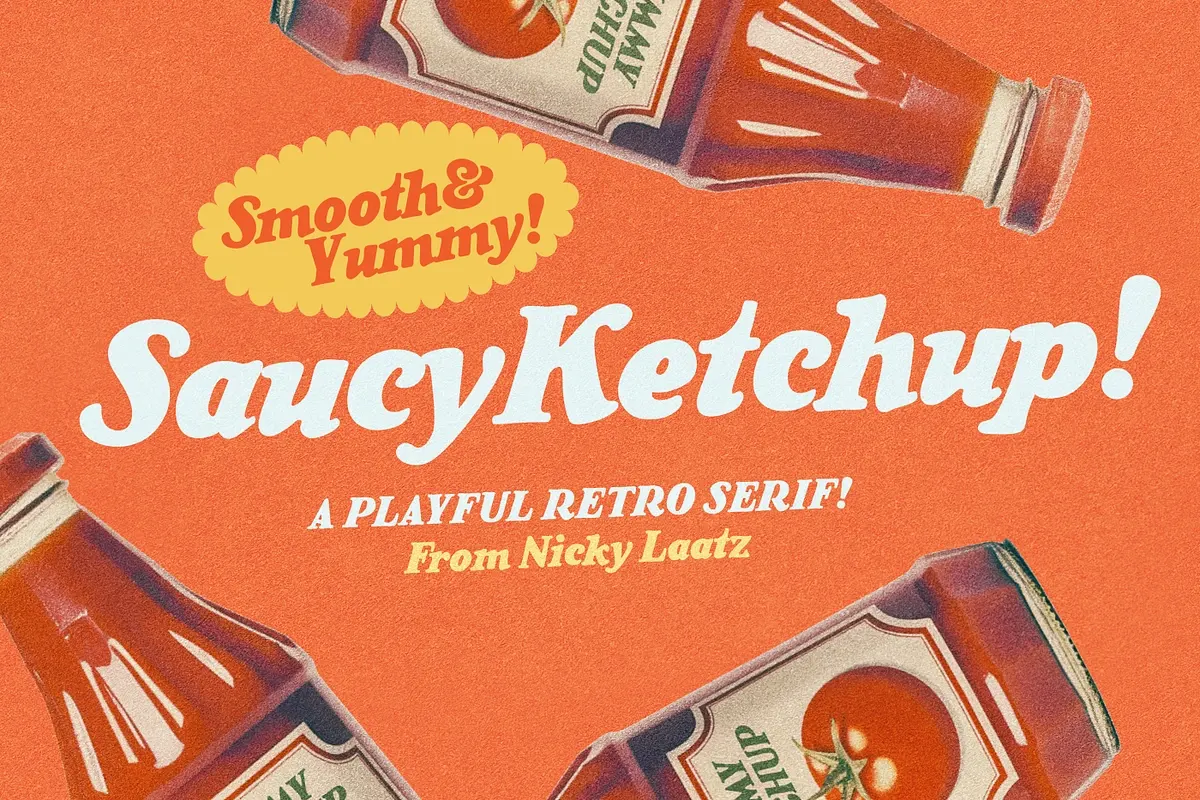
Saucy Ketchup! A Retro Serif Font Free Download is a bold and flavorful typeface packed with nostalgic charm and vintage attitude. Please note: you must purchase this font for commercial use, but you can test it through a free download. With its chunky serifs, playful curves, and old-school diner vibe, Saucy Ketchup is perfect for retro branding, food packaging, posters, T-shirt designs, and eye-catching social media content.
This font adds a delicious splash of personality to any project—whether you're designing a throwback logo or a fun headline with character. Saucy Ketchup! A Retro Serif Font Free Download is your go-to for bold, funky, and irresistibly vintage designs. It’s fully compatible with Adobe Illustrator, Photoshop, Canva, and other design tools, making it easy to use for any creative. Download it today for personal use and serve up serious retro flavor in your next design!